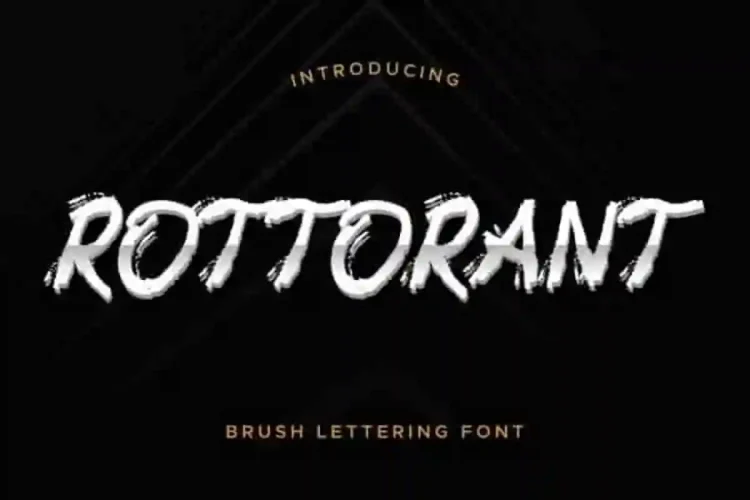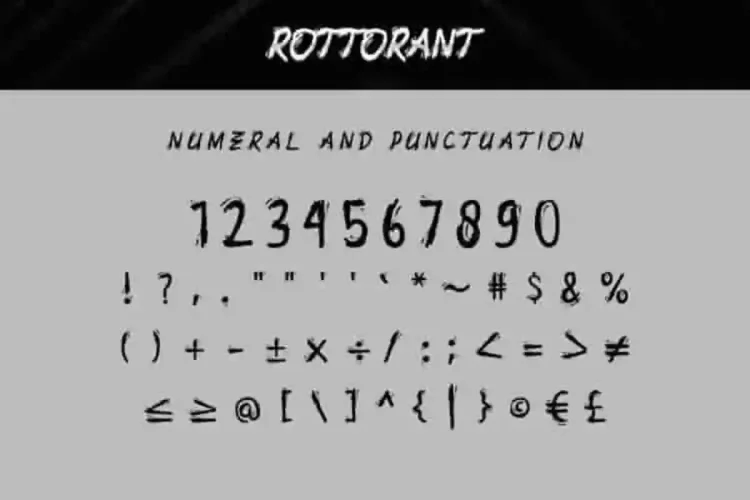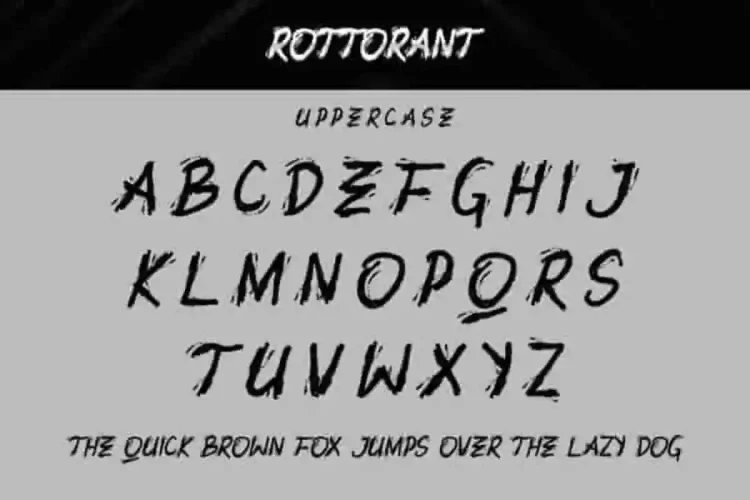
Rottorant Grunge Brush Font
Introducing our latest font : Rottorant Rough Font
Edric Studio proudly presents Rottora, a powerful and stylish display font handcrafted by our talented typeface artists Ali and Sarah in Bandung and Garut, Indonesia.
Rottorant Rough Font is an unique textured brush decorative typeface with brush style. This font has an exclusive characters set, perfectly managed with well spaced and kerning. The theme style of this font will vintage, clumsy, graphity, street, biker, horror and classic brush rough style. This font is like no other.
Rottorant Rough Font will be great(with extended license) for any projects including : branding, logo, stationery, business card, signage, flyer, brochure etc. Almost all industries will be match for this typeface: events, cafe, motor, biker, street looks